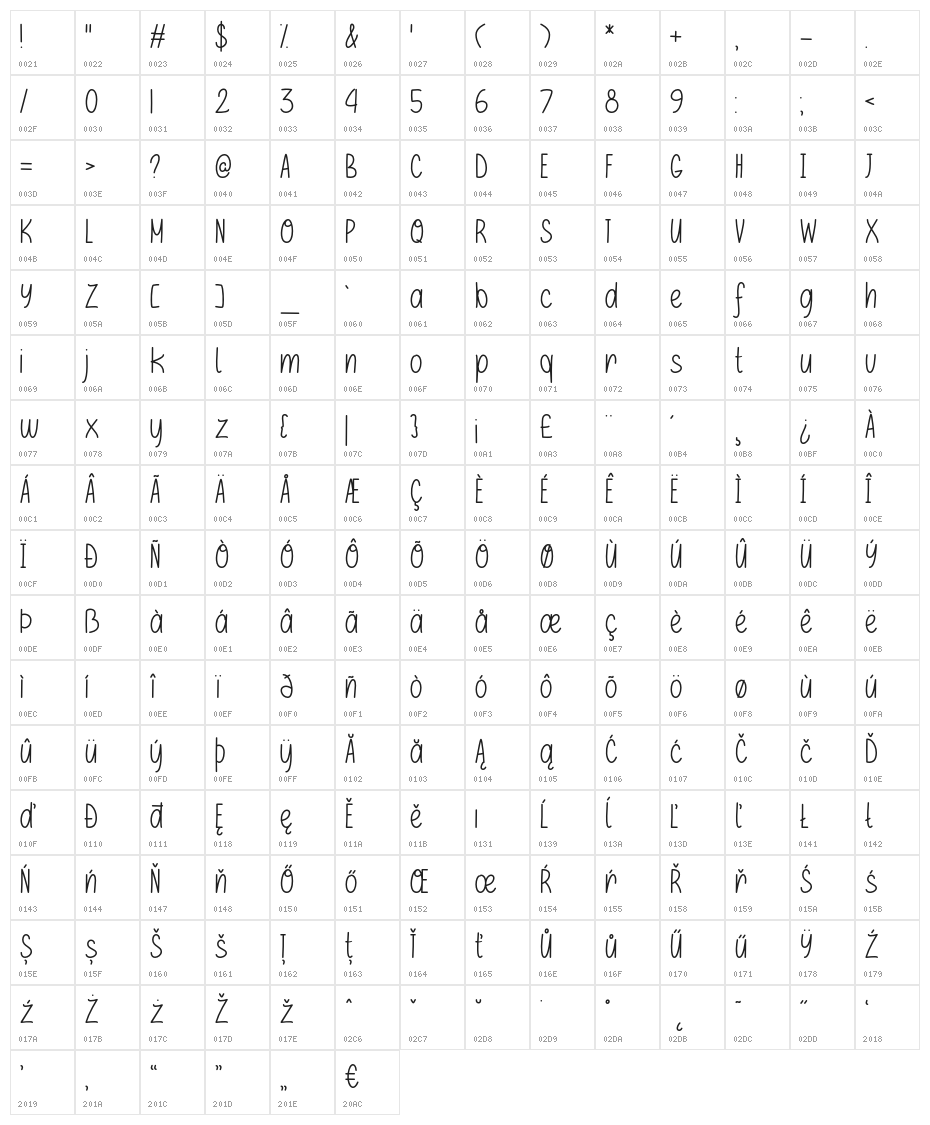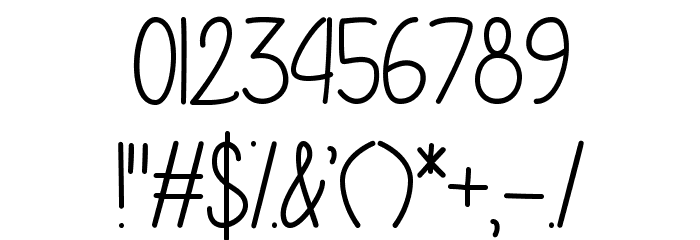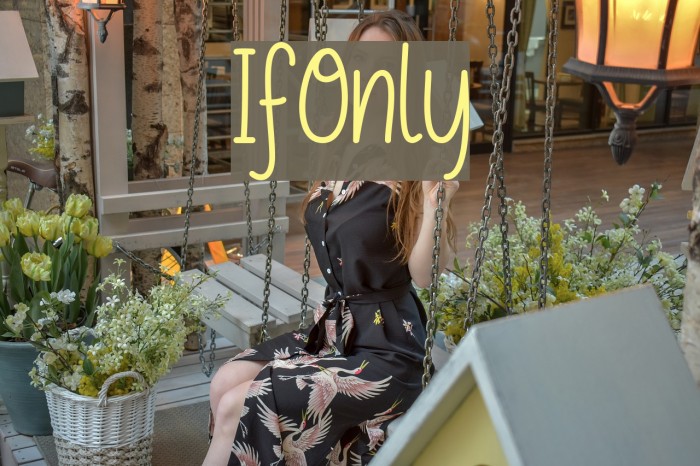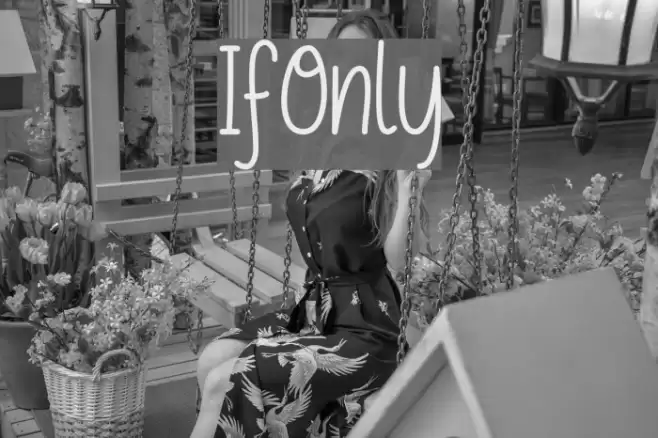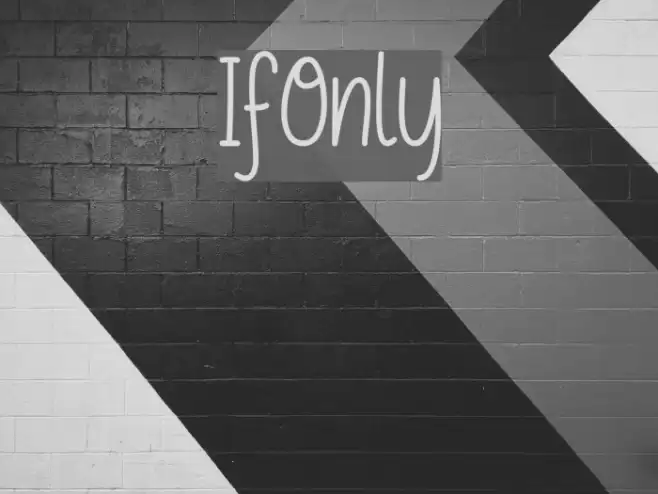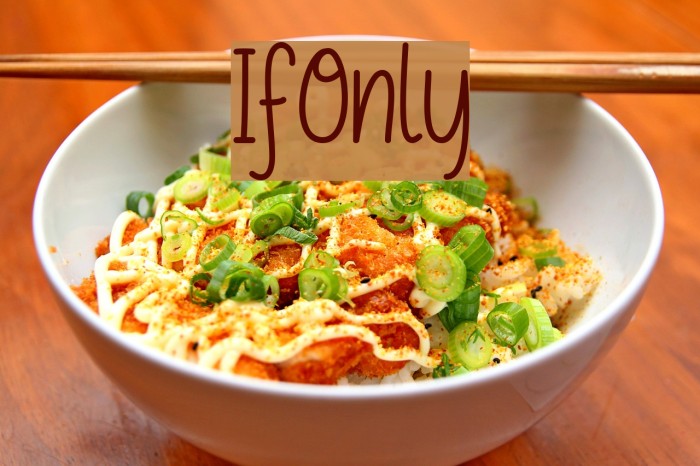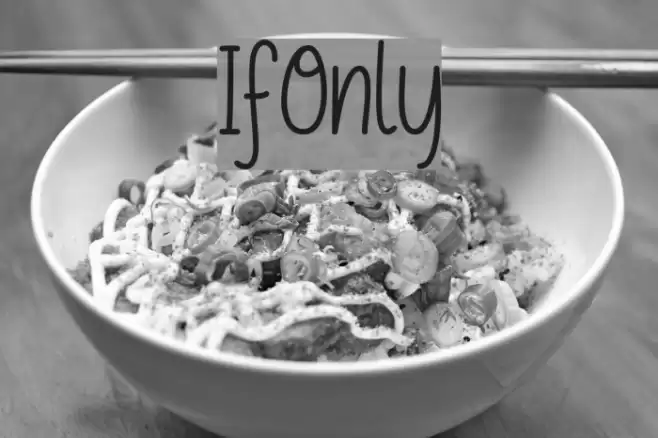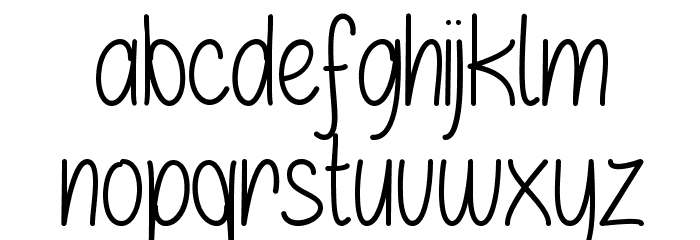
IfOnly Font
| Style général | Casual, Playful |
| Cas d'utilisation | Headlines, Informal text, Creative projects |
| Projets proposés | Greeting cards, children's books, casual branding, social media graphics, and personal blogs. |